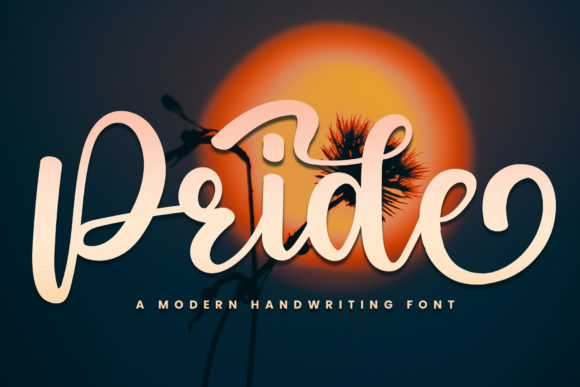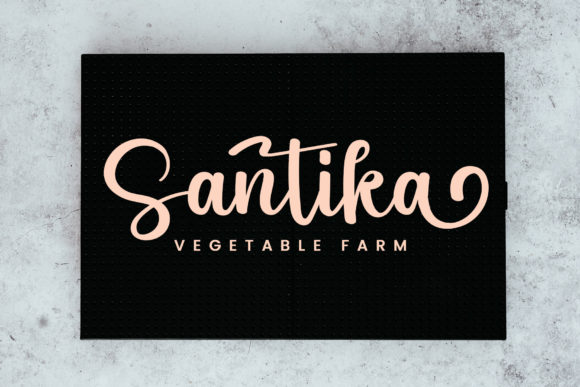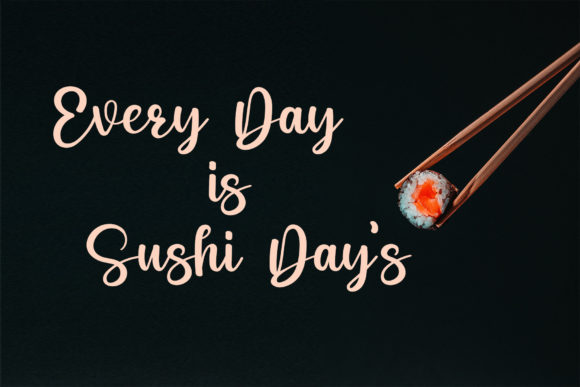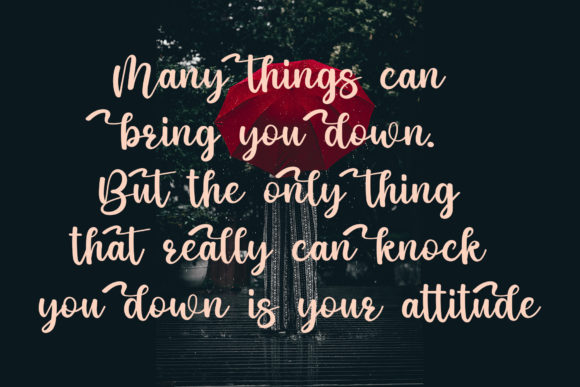
About Pride Font
Pride exudes a romantic and sweet charm with its handwritten script, where characters gracefully dance along the baseline. This font, characterized by its luxurious spark, serves as an enchanting addition to any design project, infusing a touch of sophistication and elegance that elevates the overall aesthetic.
The romantic allure of Pride is particularly well-suited for projects where a sense of warmth and intimacy is desired. Whether used in wedding invitations, love letters, or any design aimed at conveying a heartfelt message, Pride brings a unique and personal touch. The handwritten style adds an authentic feel, creating an emotional connection with the audience.
The luxury embedded in Pride’s design makes it a versatile choice for projects that demand a touch of opulence. Its ability to add a touch of grandeur ensures that it complements high-end branding, upscale events, or any design endeavor where a lavish atmosphere is sought. The font’s handwritten nature contributes to a sense of bespoke elegance, making it stand out in various design contexts.
PUA encoding enhances the user experience, allowing seamless access to the font’s amazing glyphs and ligatures. This feature not only facilitates ease of use but also encourages creative exploration. Designers can effortlessly incorporate unique elements into their projects, customizing the font to suit specific design requirements and preferences.
In summary, Pride is more than just a font; it’s a romantic and luxurious tool for designers seeking to infuse their projects with elegance. Whether applied to personal or high-end branding projects, its handwritten charm and PUA encoding ensure a delightful and customizable design experience. Pride stands as a testament to the beauty of handwritten script fonts, adding a touch of enchantment to every project it graces.